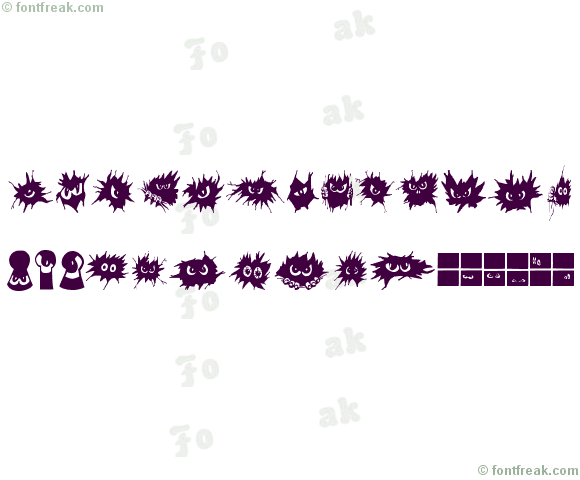
FE-NoFear
About FE-NoFear
FE-NoFear is a distinctive display font created by Font Environment, designed to captivate and engage its audience. This font features a unique, bold aesthetic that leans towards a decorative style, characterized by its irregular shapes and playful, energetic forms. The strokes exhibit a mix of varying weights, contributing to a dynamic visual appeal. Its lack of uniformity creates a sense of spontaneity, making it perfect for projects that aim to stand out.
With its whimsical design, FE-NoFear is particularly suited for a variety of creative applications. It shines in contexts such as children's book covers, where its fun and quirky style can attract young readers. Additionally, it works well for event flyers, especially for festivals or parties, where a lively and engaging font can enhance the overall vibe. The font is also an excellent choice for merchandise branding, where its unique character can help products catch the eye of potential customers. Finally, it can be utilized in social media graphics, allowing content creators to craft bold statements that resonate with their audience.
What truly sets the FE-NoFear font apart is its ability to convey emotion and energy through its playful design. This font is more than just letters; it embodies a spirit of creativity and fun that can transform ordinary text into a striking visual statement. For those interested in this unique typeface, the FE-NoFear font free download offers an exciting opportunity to enhance your design toolkit.